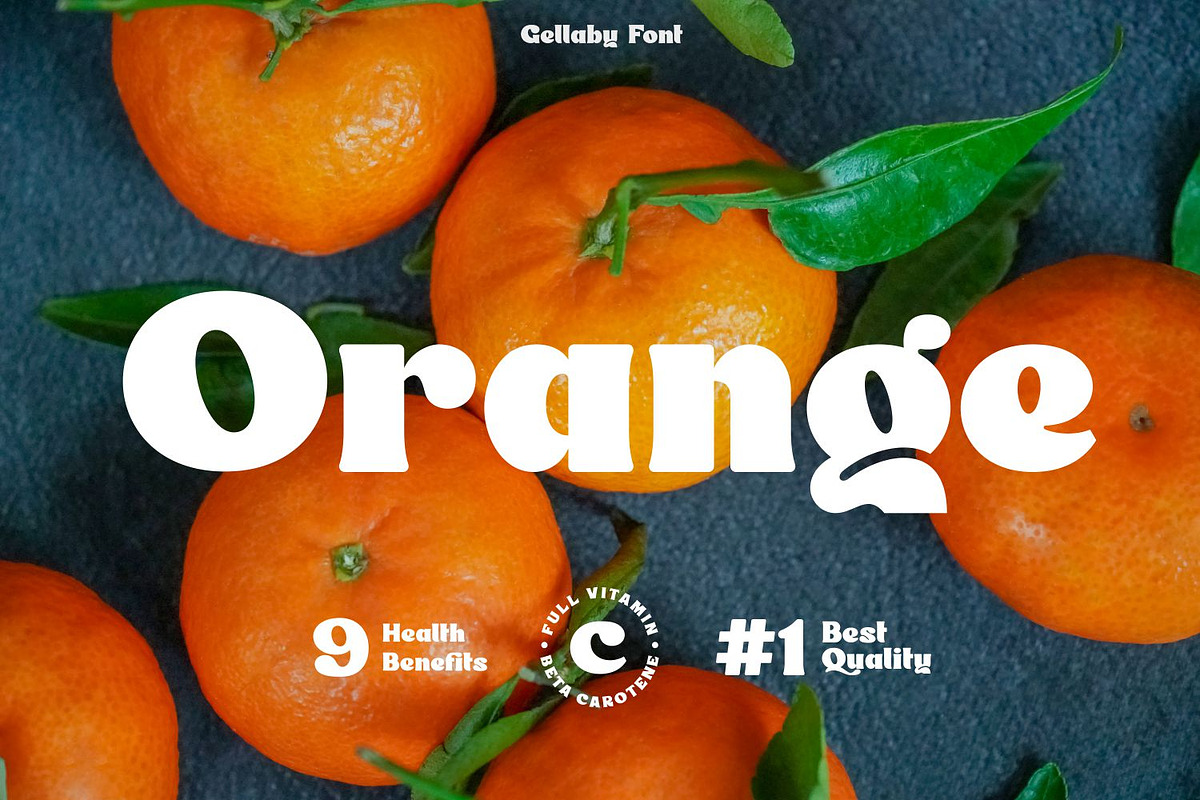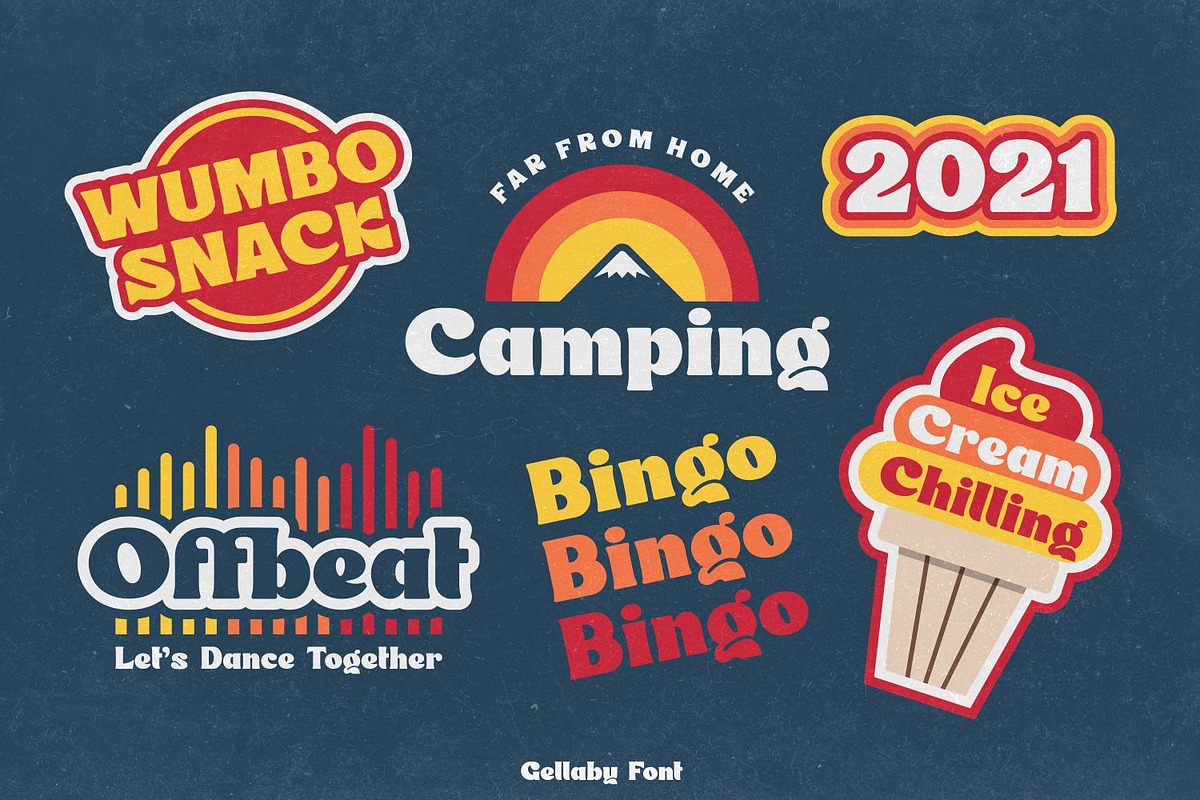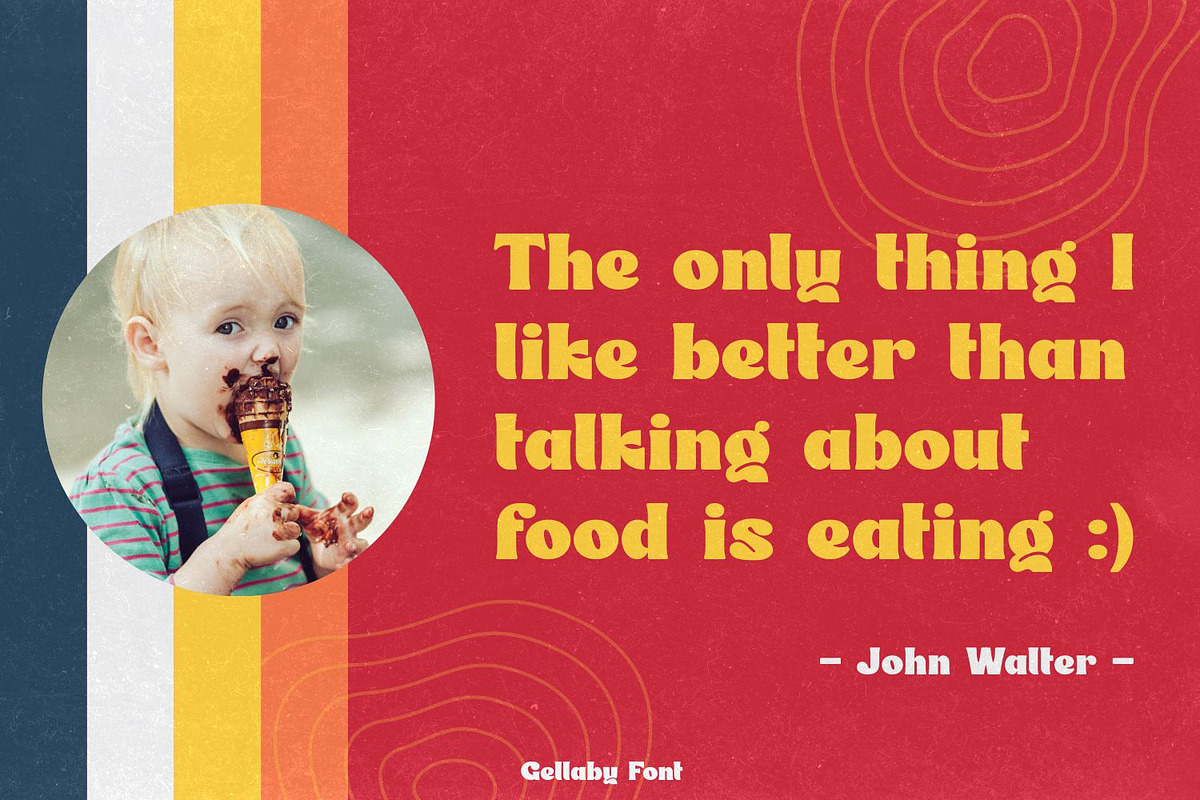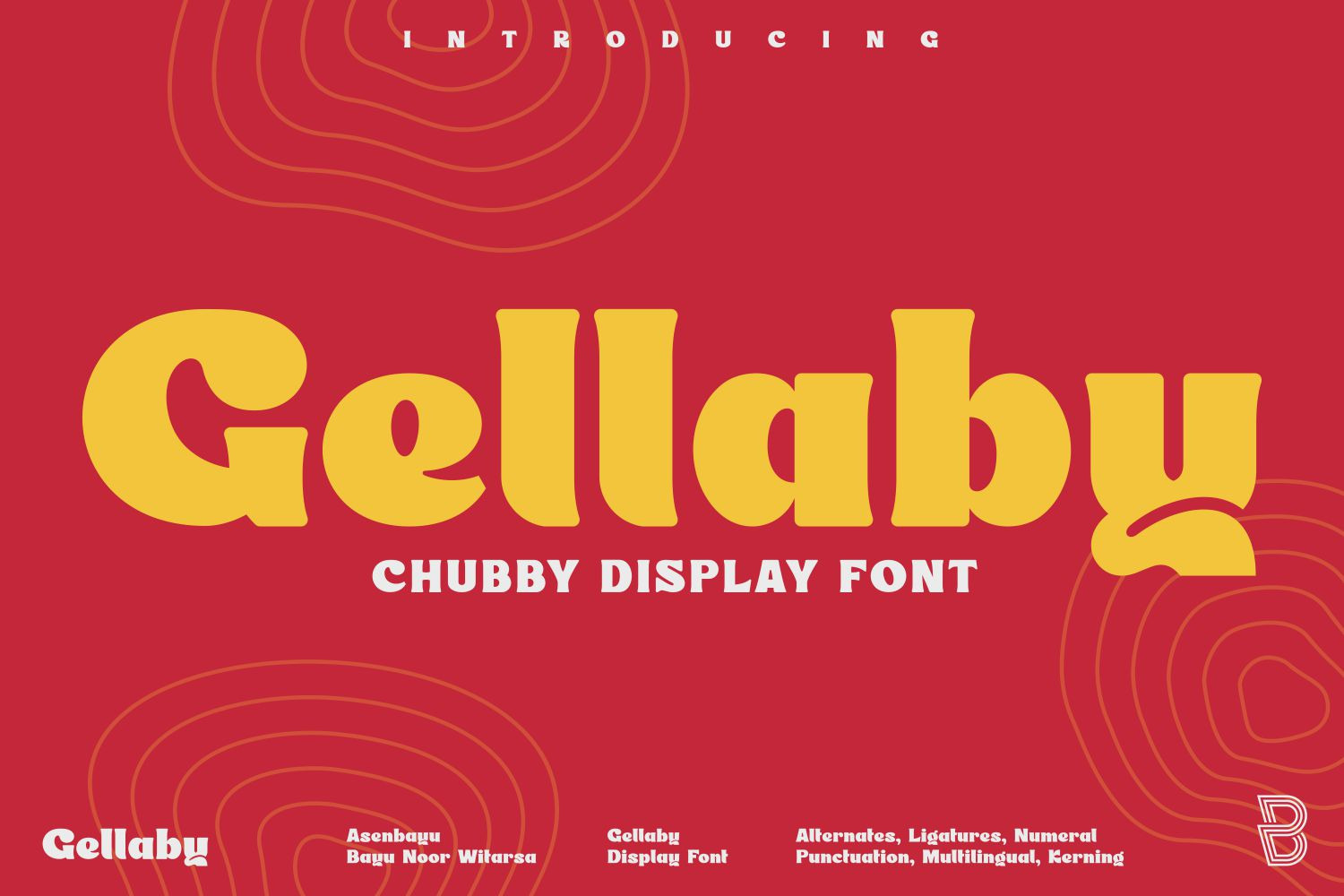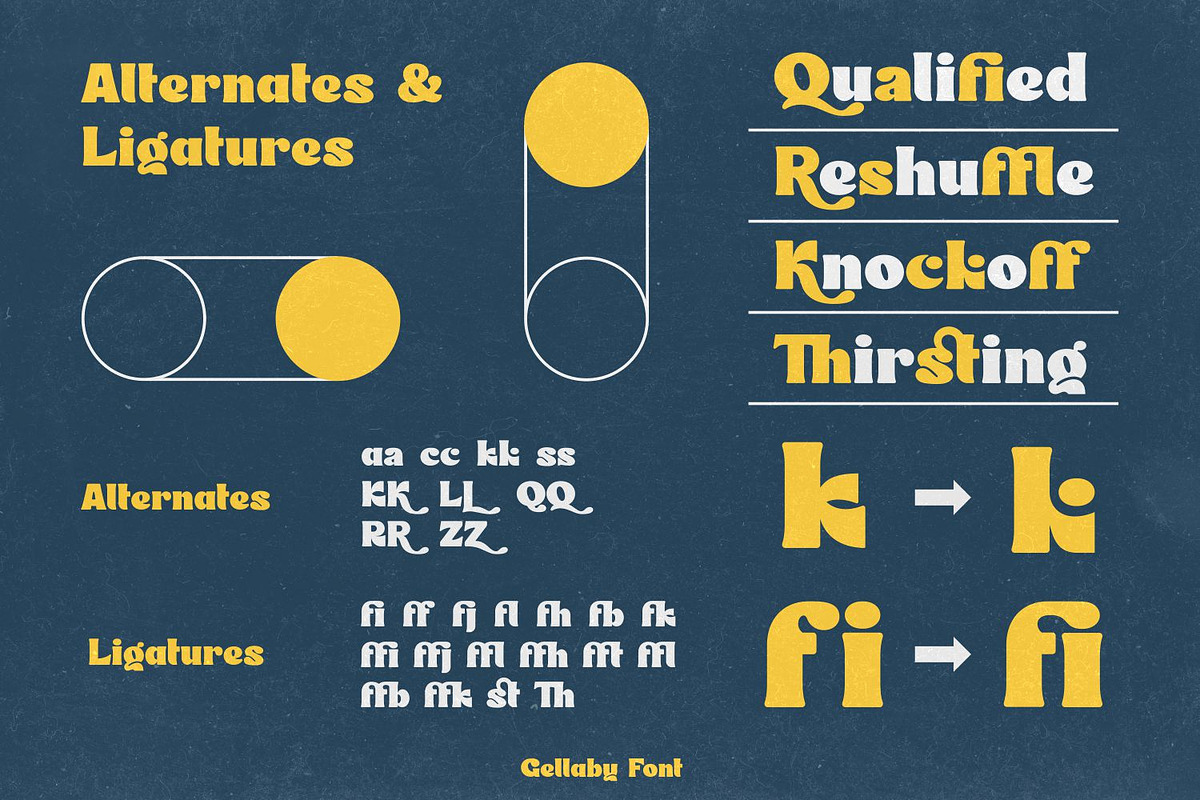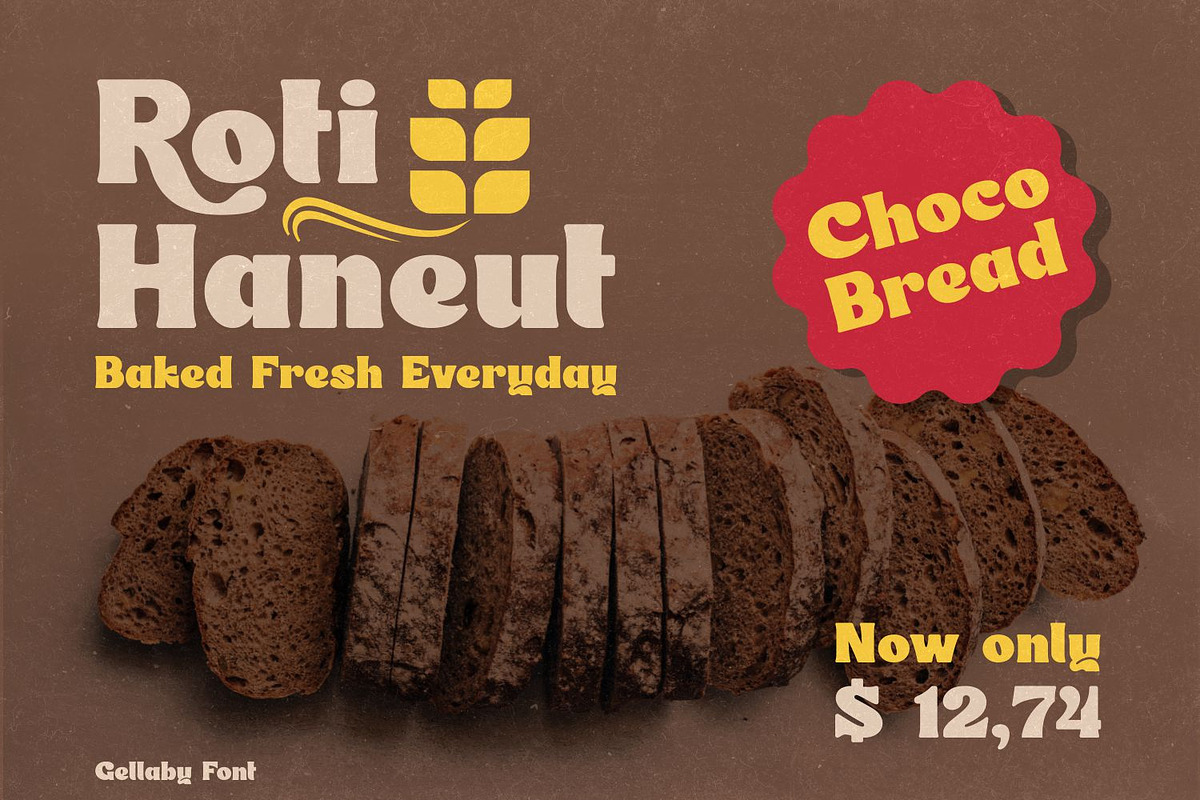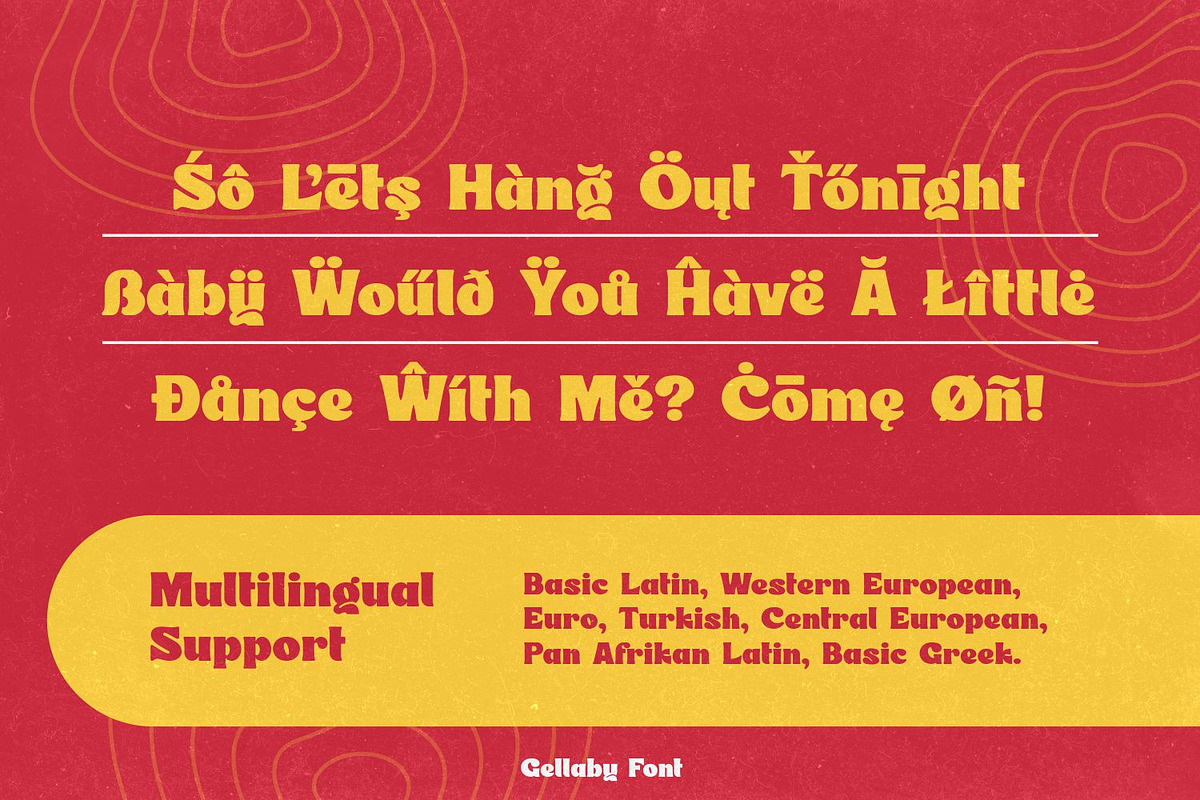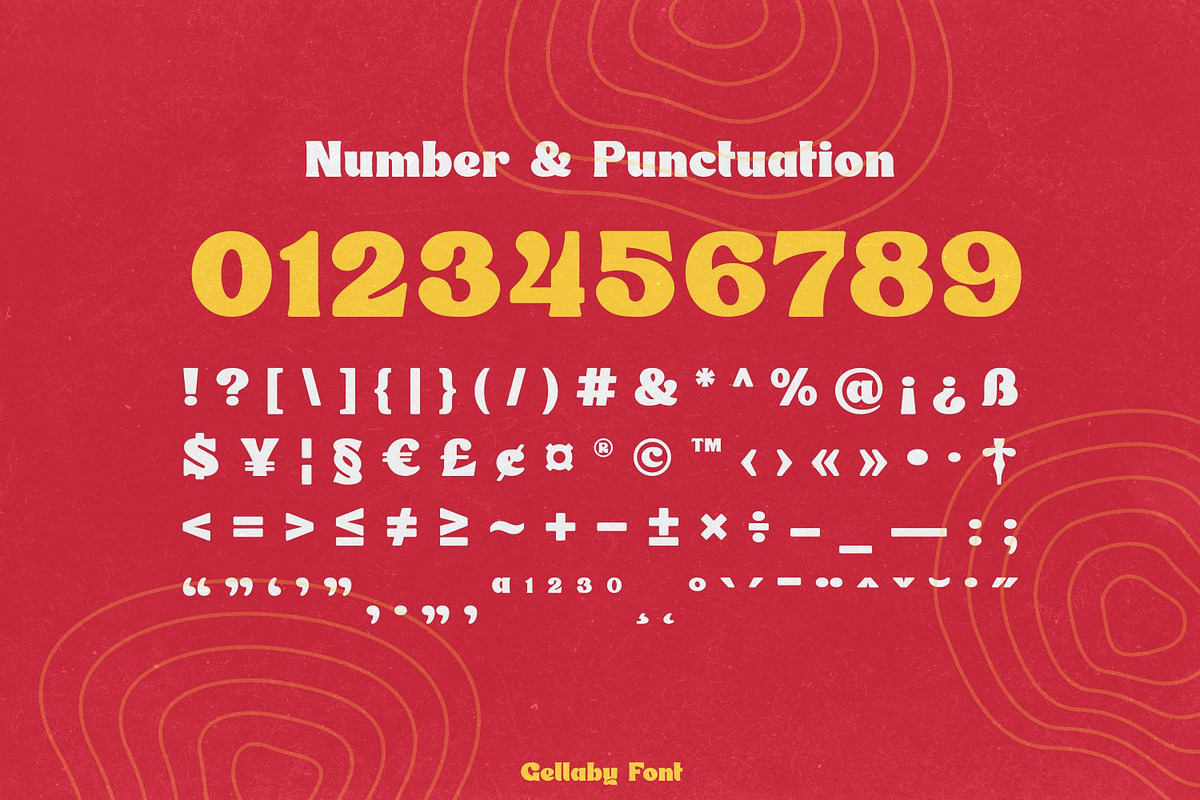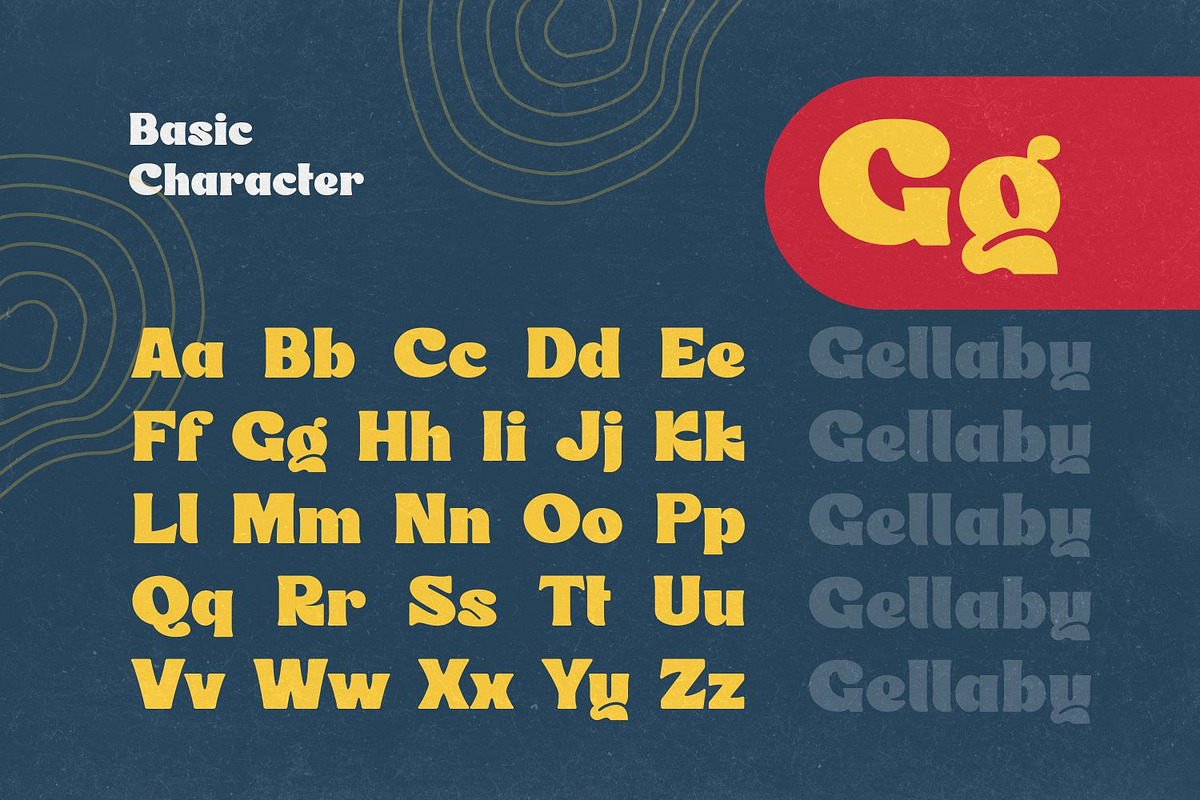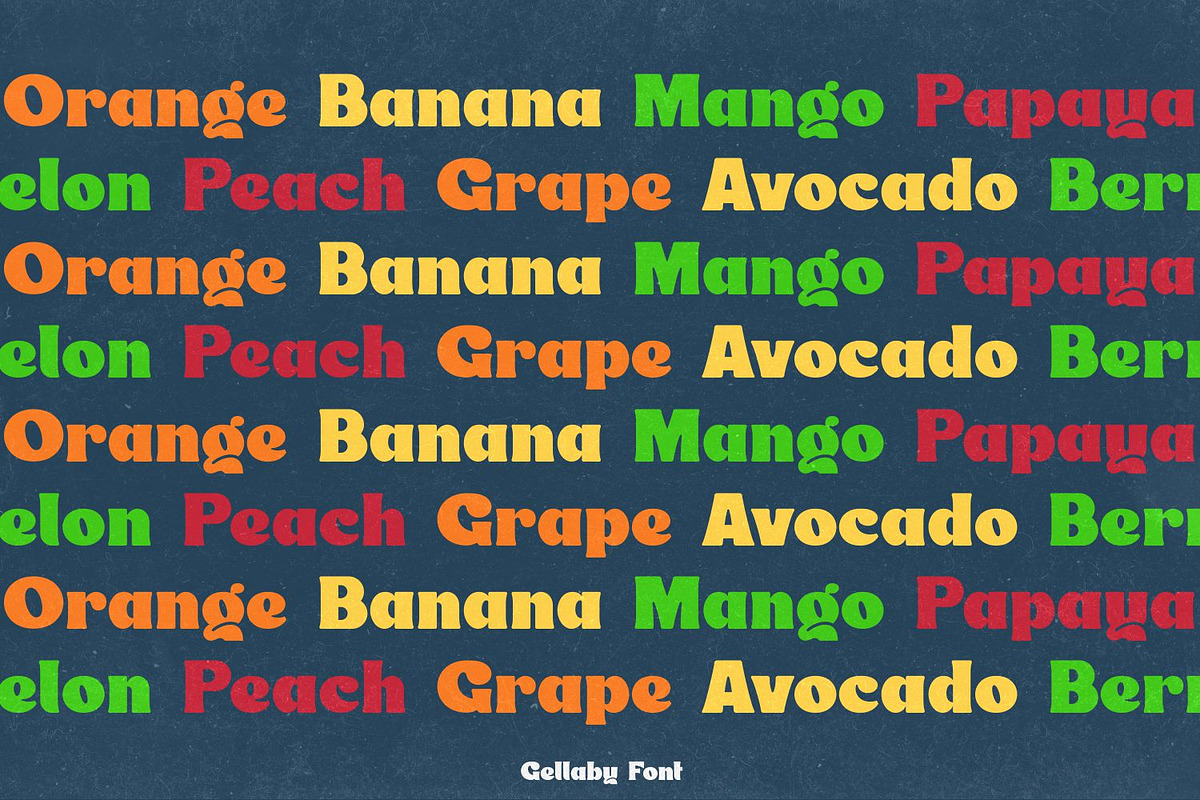
Gellaby Font
Gellaby is a bold semi-serif display font with a unique and chubby shape. You can use this font in retro, vintage, modern and playful designs. This font is perfect for a variety of projects, such as branding, product label, poster displays, logo designs, magazine, headline, sticker and more.
Gellaby font feature opentype, kerning, alternative style and ligature. Gellaby include uppercase letters, lowercase letters, numeral, punctuation and multilingual support.